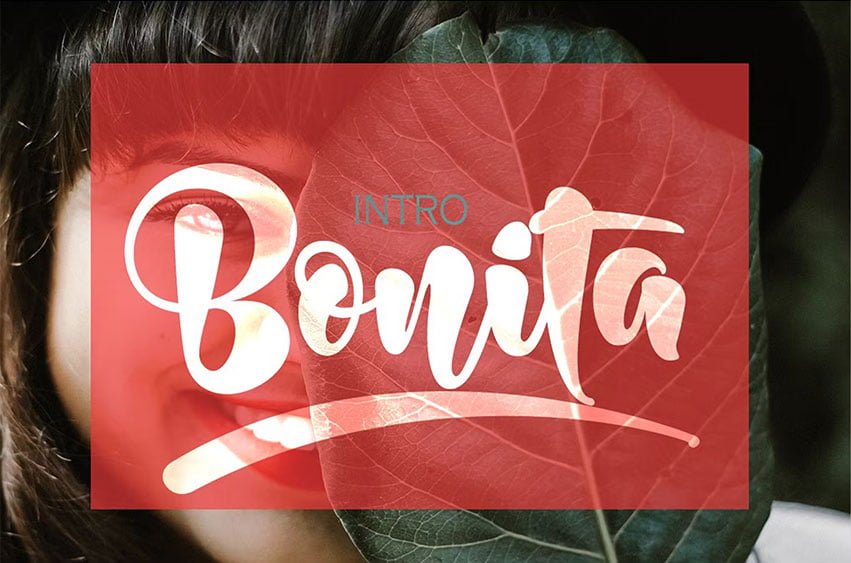
Bonita Bold Font is the font style handmade dancing and then live trace to have unique, the writing style is very natural.
- Standart ligatures
- Stylistic Alternates
Bonita Bold Font Preview